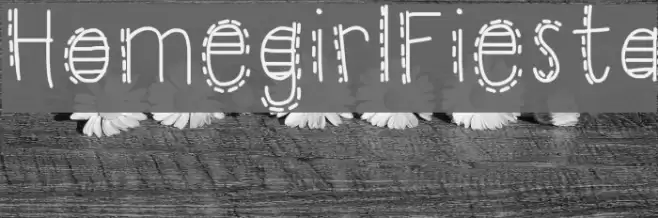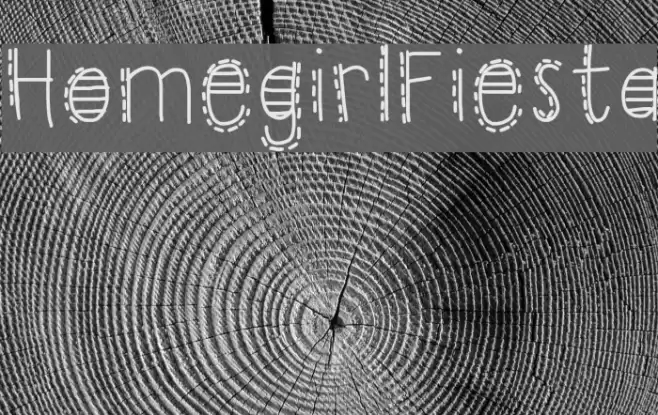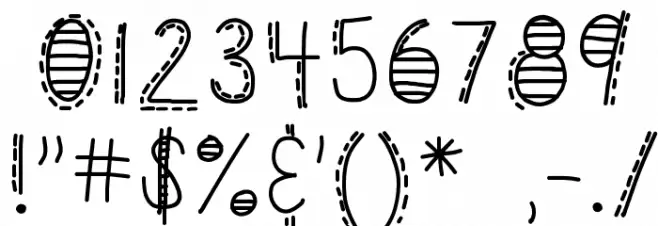
HomegirlFiesta Font
HomegirlFiesta Description
This playful and whimsical font features a unique design with a hand-drawn aesthetic. Each character is outlined with a dotted pattern, giving it a stitched or embroidered look. The uppercase and lowercase letters maintain a consistent style, with rounded edges and a casual, informal appearance. The numbers follow the same playful theme, with some characters incorporating horizontal lines within their outlines. Special characters are also included, matching the overall quirky and fun style. This font is ideal for projects that require a lighthearted and creative touch.
A playful, hand-drawn font with a dotted outline and whimsical style from Uncategorized fonts.
- Proposed Projects: Ideal for children's books, party invitations, greeting cards, and playful branding projects.
- Overall Style: Whimsical, Playful, Hand-drawn
- Use Case: Headlines, Logos, Invitations